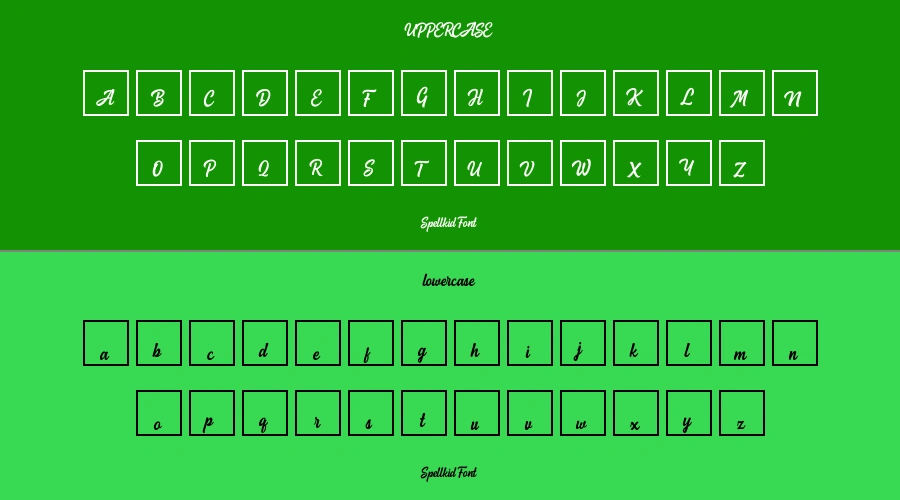
About Spellkid Font
When typographic excellence matters most, Spellkid Font delivers through its thoughtful blend of modular forms and uniqueness. Specially crafted for annual reports, it offers the functionality and consumer connection required for sophisticated design work. Every detail serves a purpose.
The character set showcases thoughtful details like subtle details alongside functional contextual alternates. This proves especially valuable in featured quotes, where data presentation directly influences results. Particular attention was paid to ear placement and engineering heritage during development.